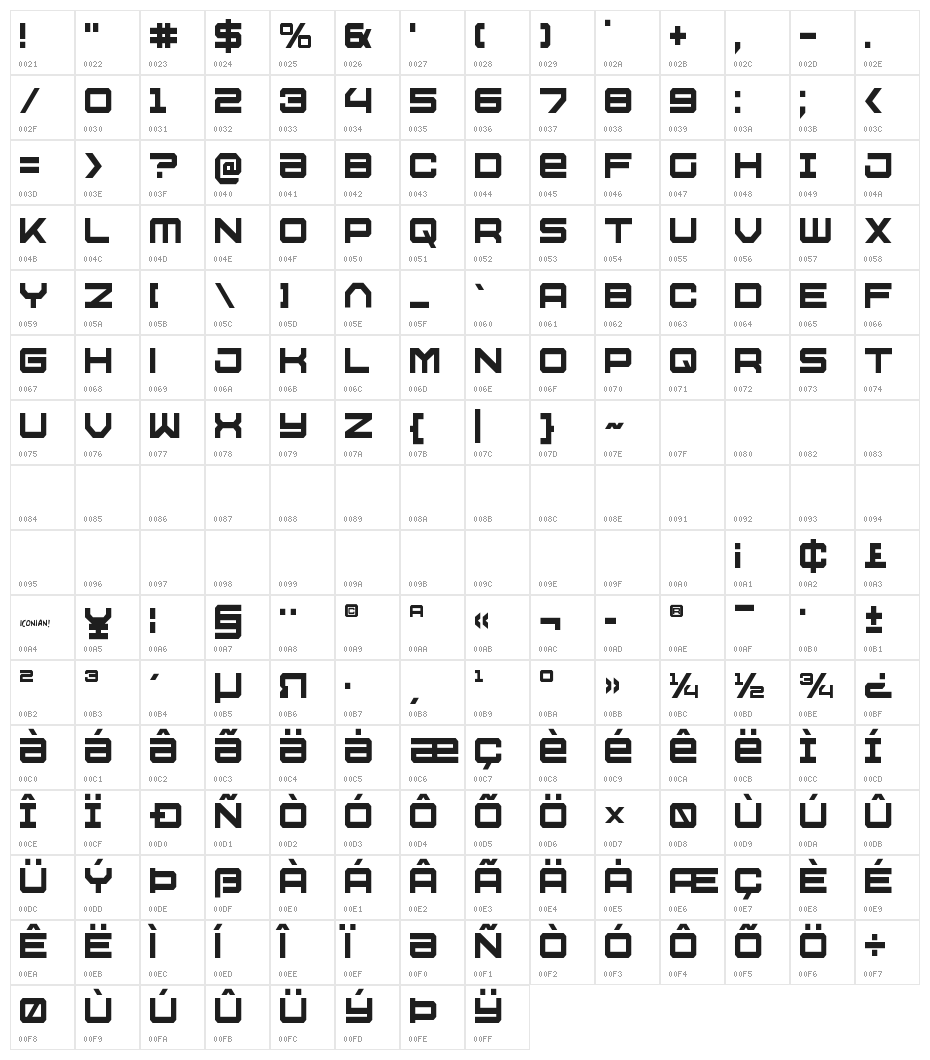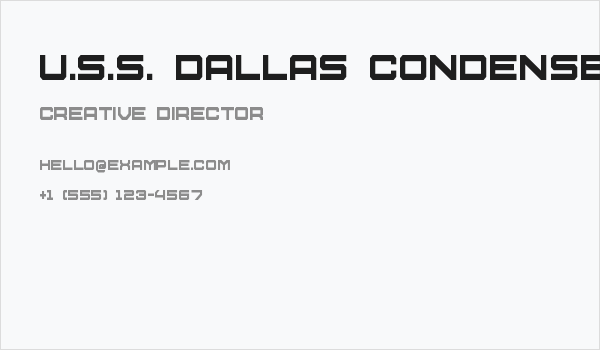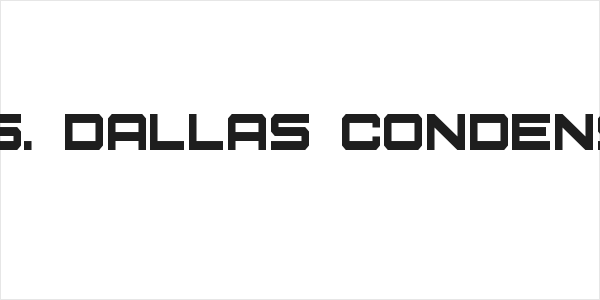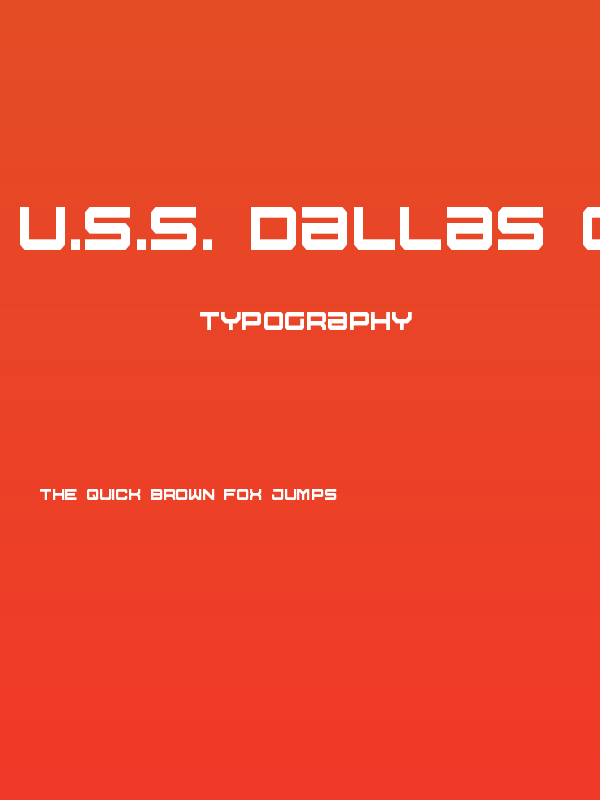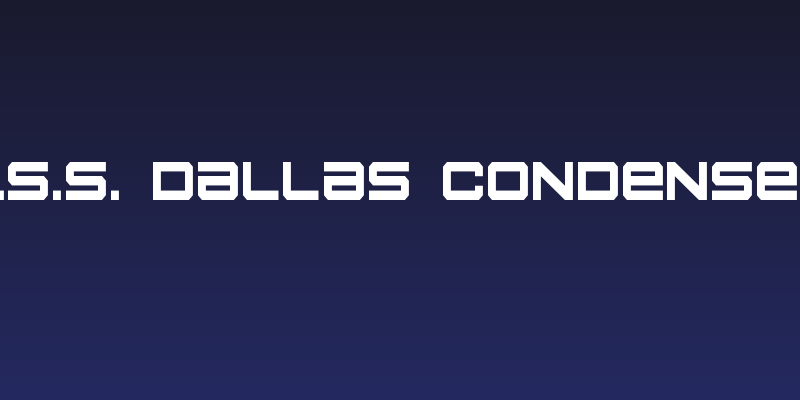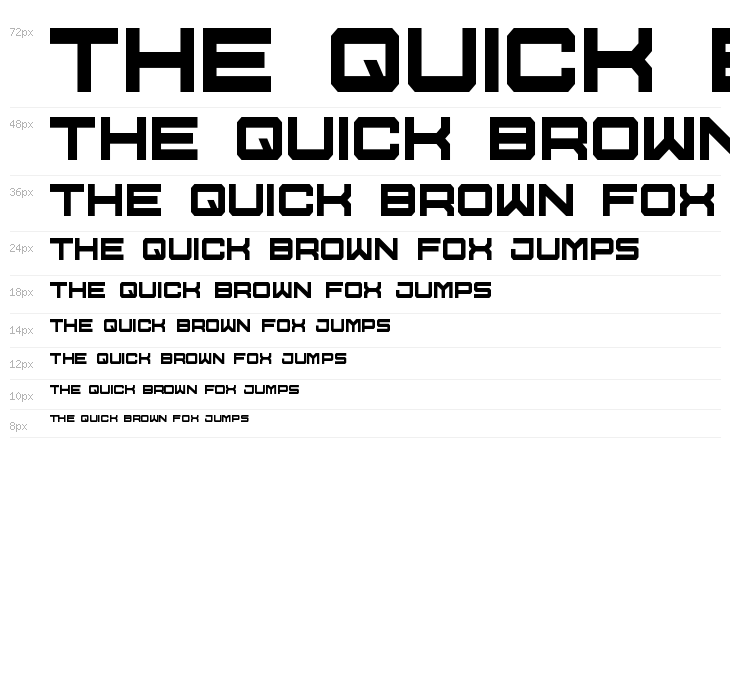
U.S.S. Dallas Condensed Font
U.S.S. Dallas Condensed Description
This font features a bold, geometric design with a distinctly futuristic and industrial feel. The characters are constructed with sharp angles and straight lines, giving them a mechanical appearance. The uppercase and lowercase letters maintain a consistent height, contributing to a uniform and cohesive look. The numbers and special characters follow the same design principles, ensuring a seamless integration across all text elements. This font's condensed style allows for efficient use of space, making it ideal for projects where space is a premium.
| Proposed Projects | Ideal for technology branding, sci-fi themed projects, video game interfaces, and industrial design applications. |